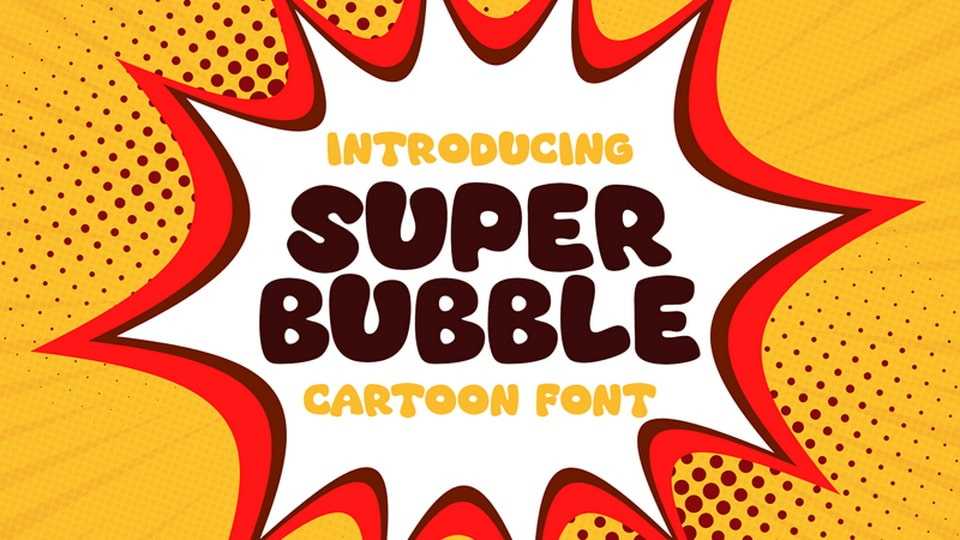
Download Super Bubble font, a lively, playful, rounded typeface with a strong cartoon feel. Super Bubble font is perfect for poster design, packaging, and anything that needs to draw attention.